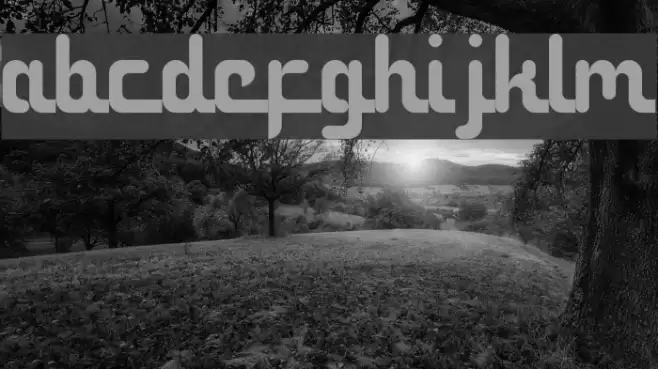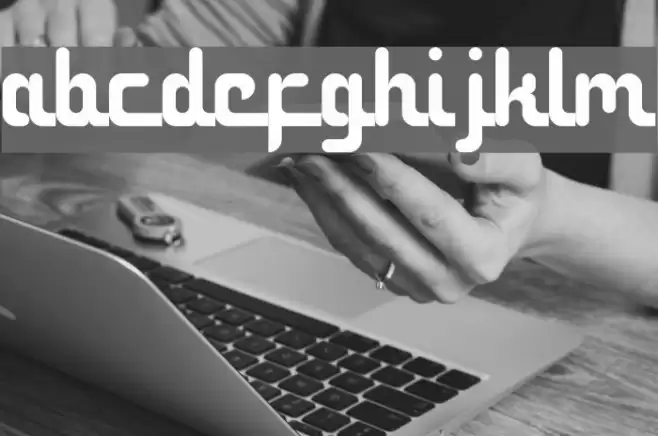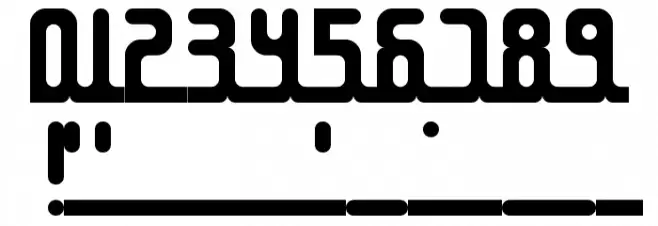
Not the middle east Font
Not the middle east Description
This font features a unique, rounded design with a bold, monospaced appearance. The characters are interconnected with a continuous line, creating a cohesive and modern look. The letters have a uniform thickness, contributing to a clean and structured aesthetic. The font's style is reminiscent of digital or futuristic themes, making it suitable for projects that require a contemporary and innovative feel. Its distinctiveness lies in the way each character seamlessly connects to the next, forming a fluid and uninterrupted flow of text.
A bold, rounded, and interconnected font with a modern, digital aesthetic from Uncategorized fonts.
- Proposed Projects: Ideal for digital interfaces, tech branding, futuristic posters, and modern art designs.
- Use Case: Logos, Headlines, Digital interfaces